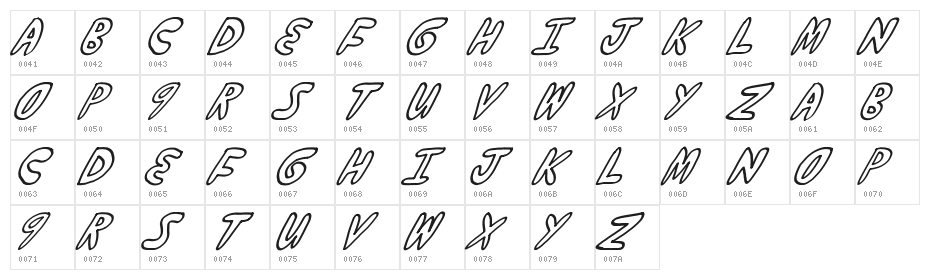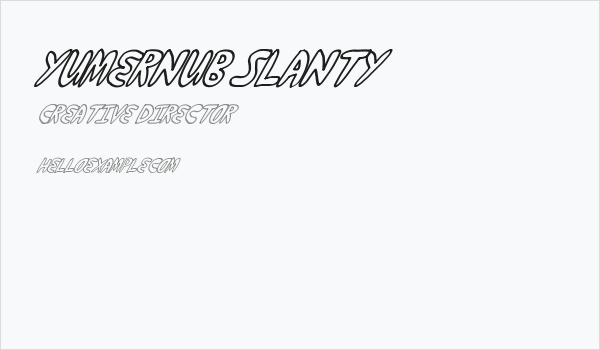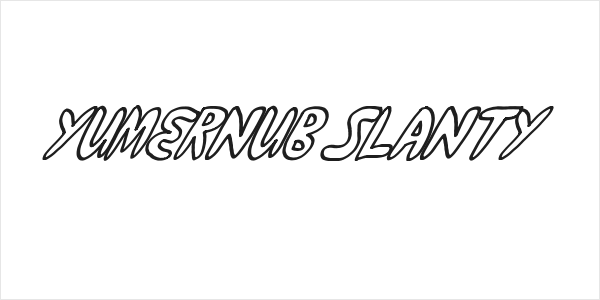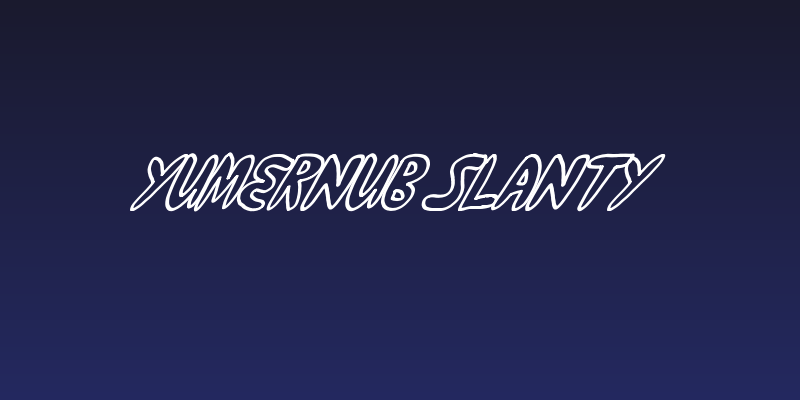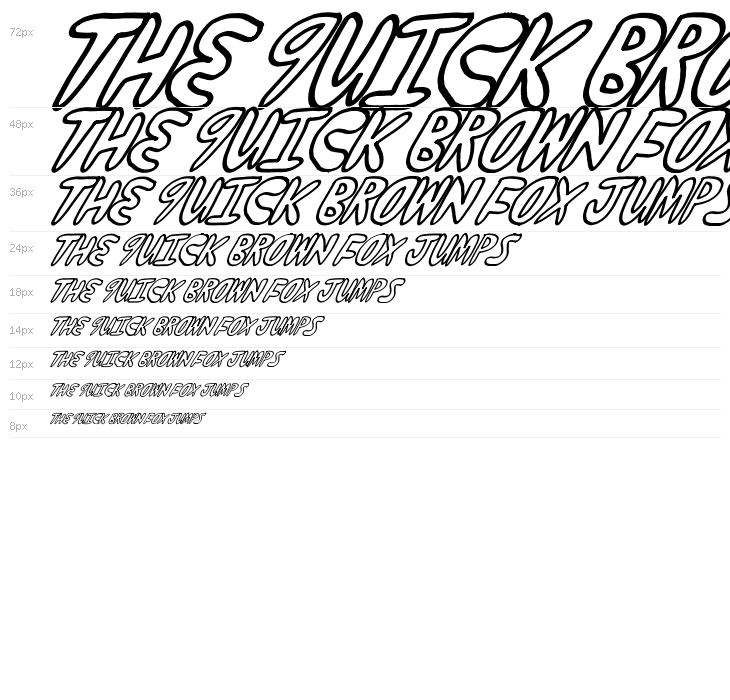
yumernub slanty Font
yumernub slanty Description
This font features a bold, dynamic style with a pronounced slant, giving it a sense of motion and energy. The characters are outlined, creating a striking visual impact that is both playful and assertive. The uppercase and lowercase letters maintain a consistent design, with rounded edges and a slightly condensed form. The numbers and special characters follow the same stylistic approach, ensuring uniformity across all glyphs. This font's unique appearance makes it ideal for projects that require a bold statement or a creative touch.
| Proposed Projects | Ideal for posters, logos, branding materials, and any design that needs a bold, energetic look. |